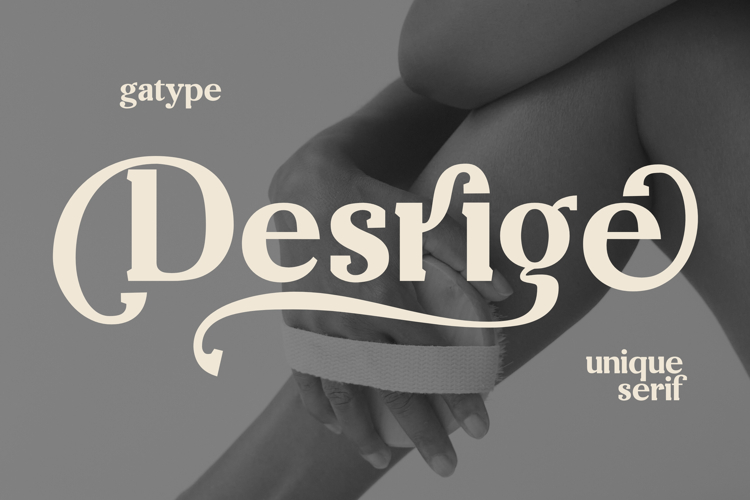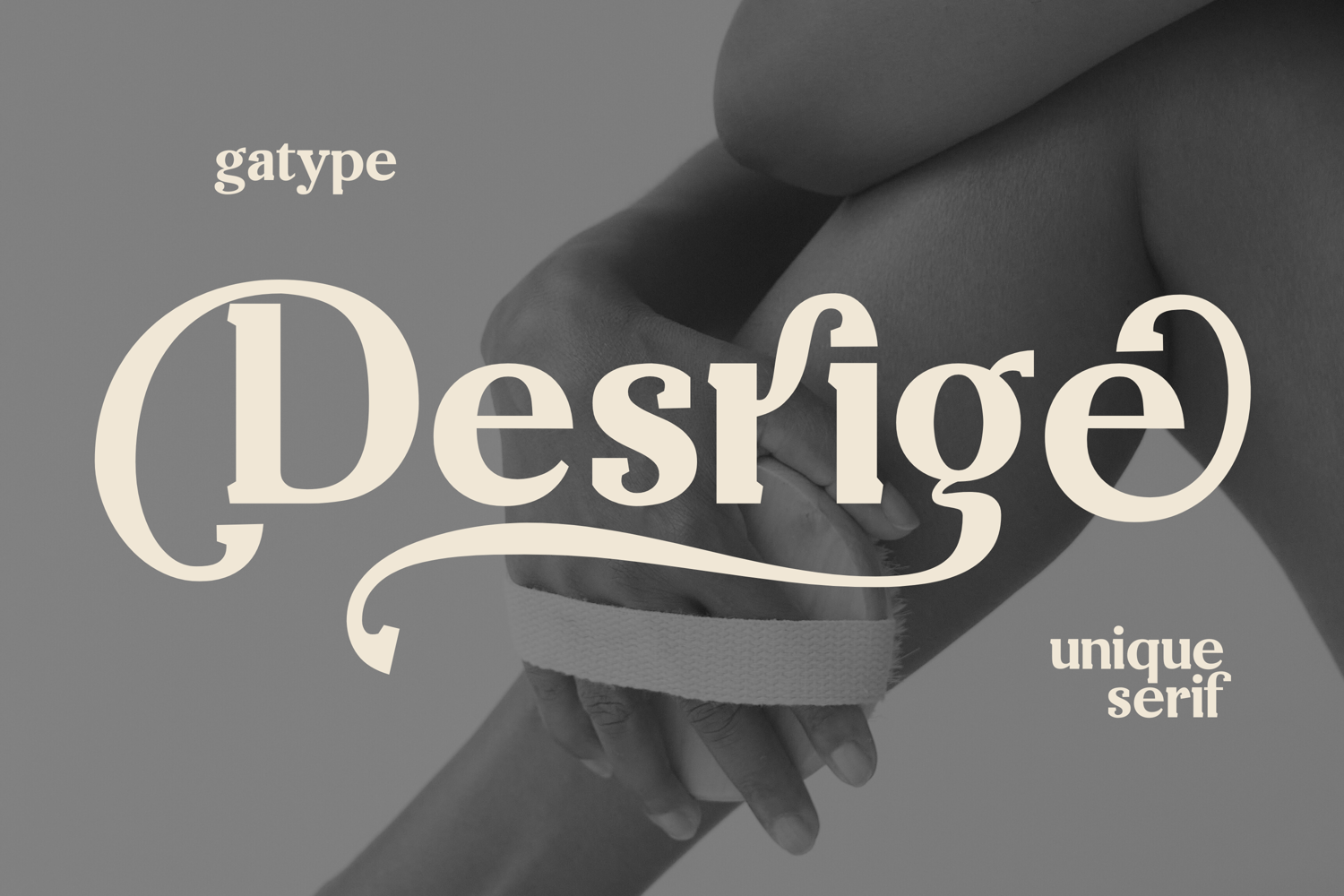
Desrige Serif is a unique and refined serif typeface crafted with smooth curves and stylish detailing. Its extensive set of alternates and OpenType ligatures gives you the freedom to create distinctive, expressive typography for branding, packaging, editorial work, and high-end design projects.